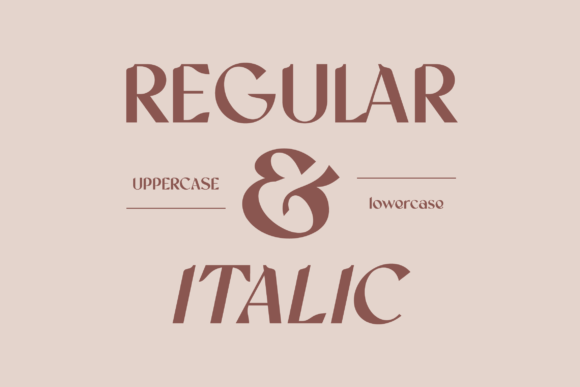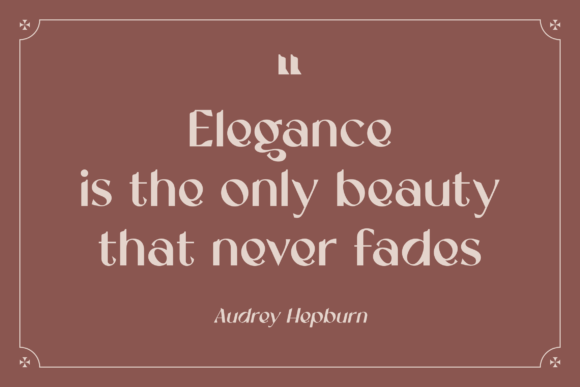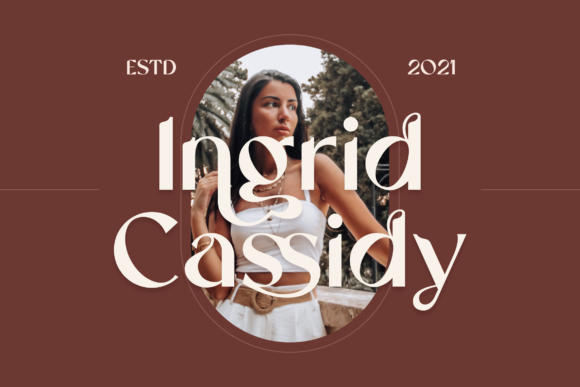
Introduction to Eugenia Font
Eugenia is an elegant and uniquely shaped display font.
It is defined by smooth curves and is perfect for fashion branding or editorial designs Add it confidently to your projects, and you will love the results.
Key Features of Eugenia Font
Why Choose Eugenia Font?
Eugenia Font offers exceptional quality and versatility, making it a valuable addition to your design toolkit. Whether you’re creating for personal projects or commercial use, Eugenia Font delivers professional results.